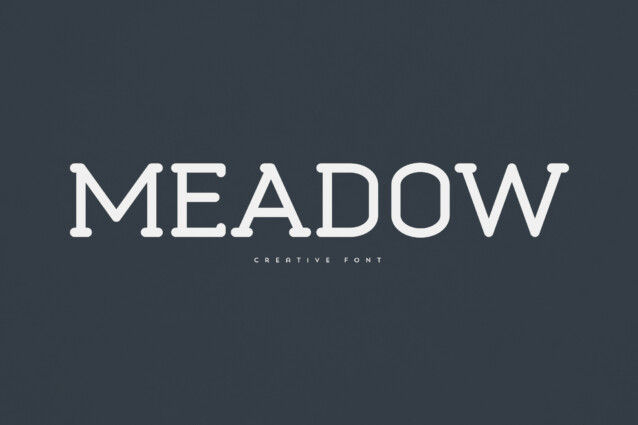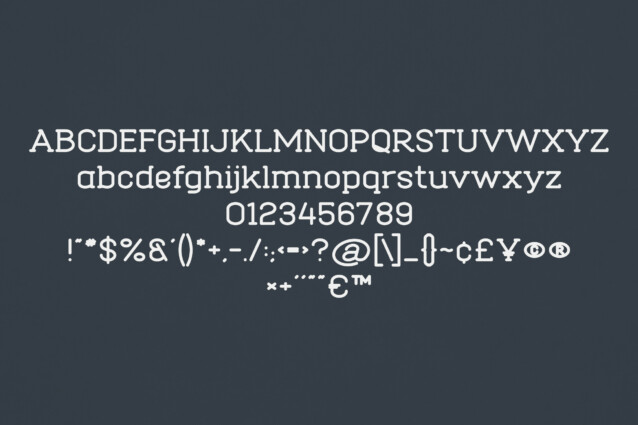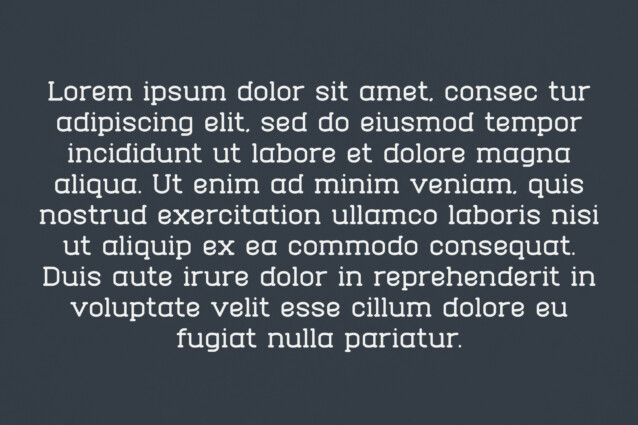
Maedow Font
Maedow Font is handwritten and vintage typeface. Very versatile fonts that works great in large and small sizes.
Maedow is perfect for branding projects, home-ware designs, product packaging, magazine headers – or simply as a stylish text overlay to any background image.